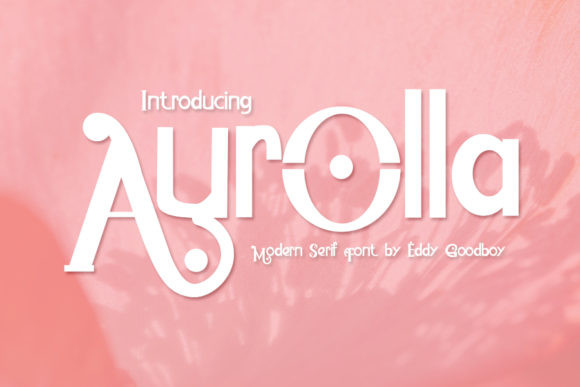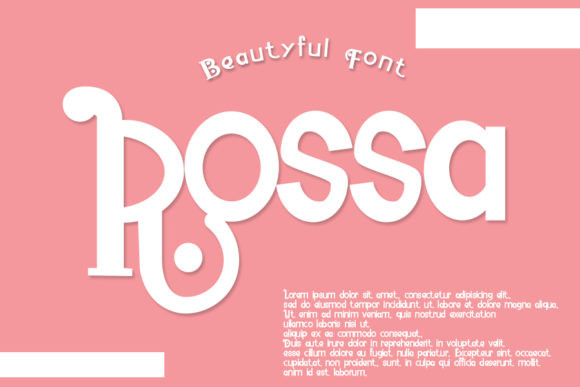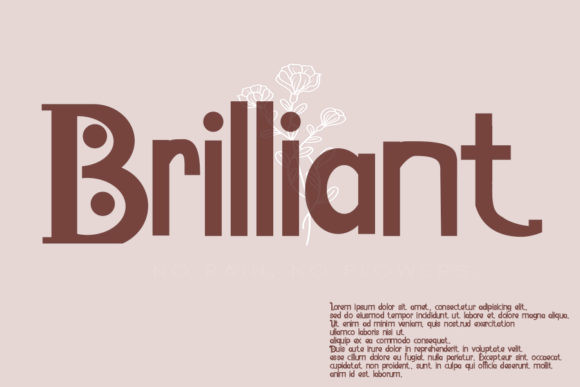
Aurolla Font
Aurolla is a cool and distinct display font. Expertly designed to make your creation look out of this world, this font has the potential to take your creative ideas far further.